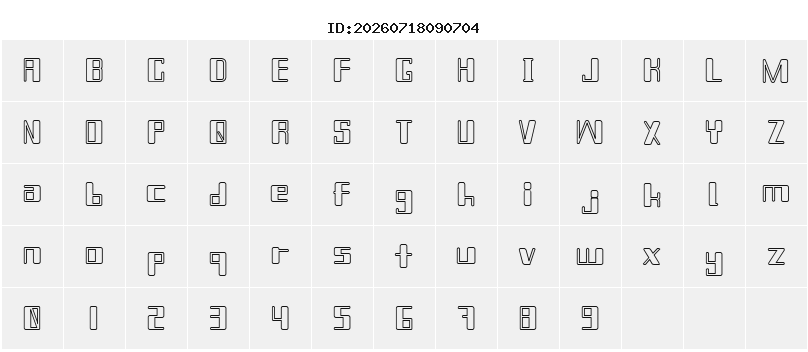
Chain Reaction Outline Preview
About Chain Reaction Outline.ttf
Chain Reaction Outline.ttf is a modern, elegant sans-serif font designed for ultimate readability and visual harmony. Perfect for branding, headlines, web design, and print materials.